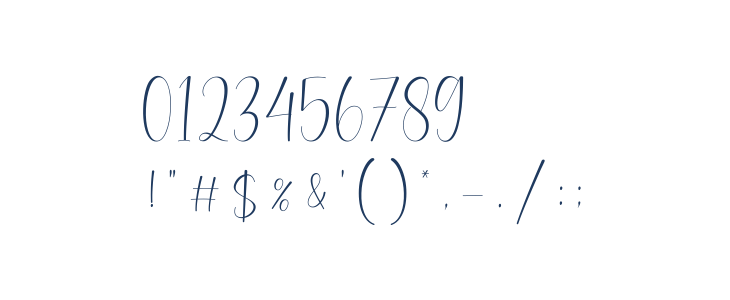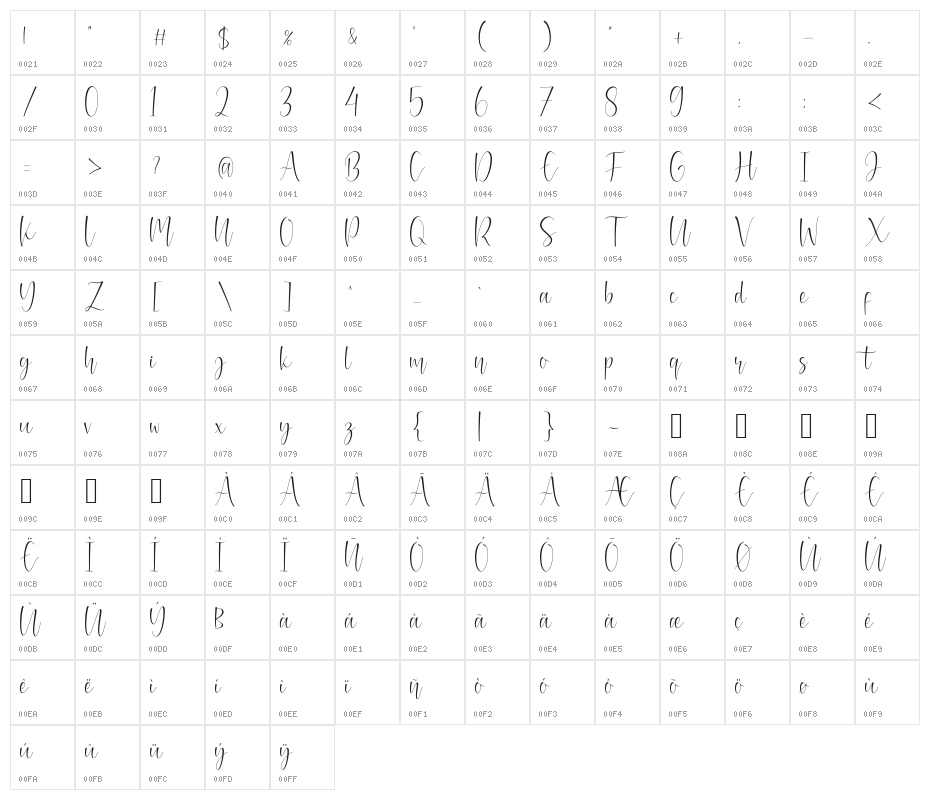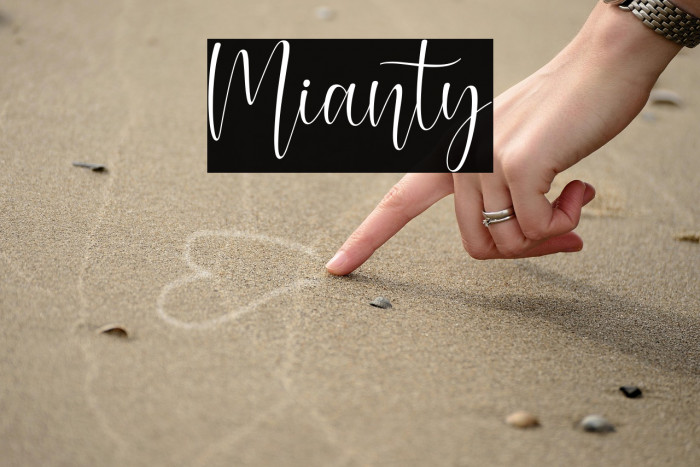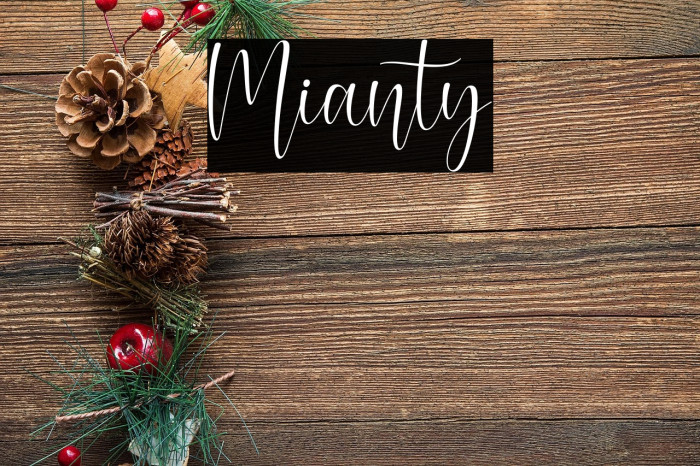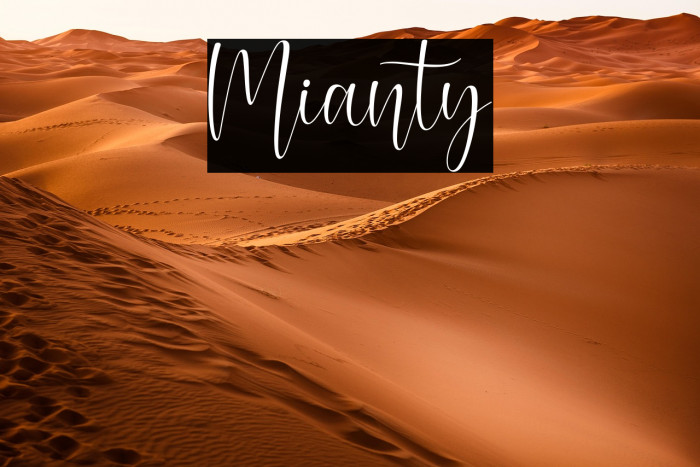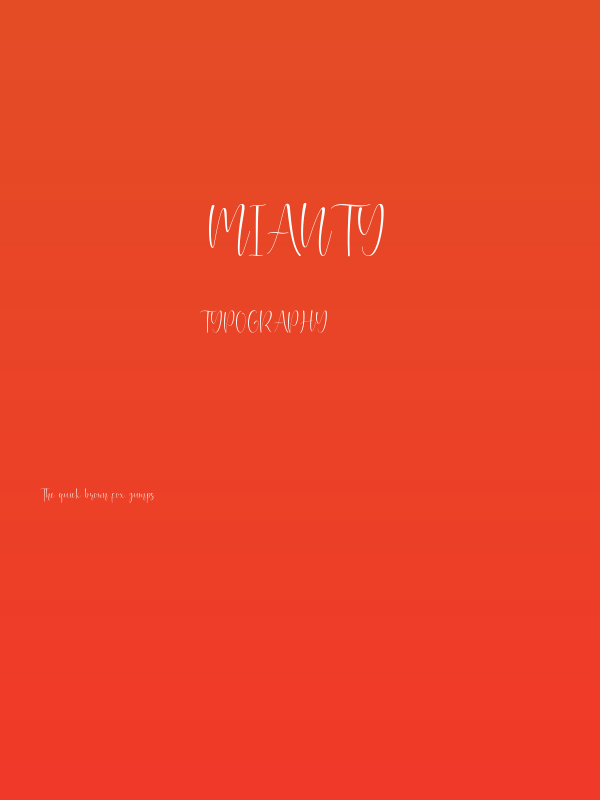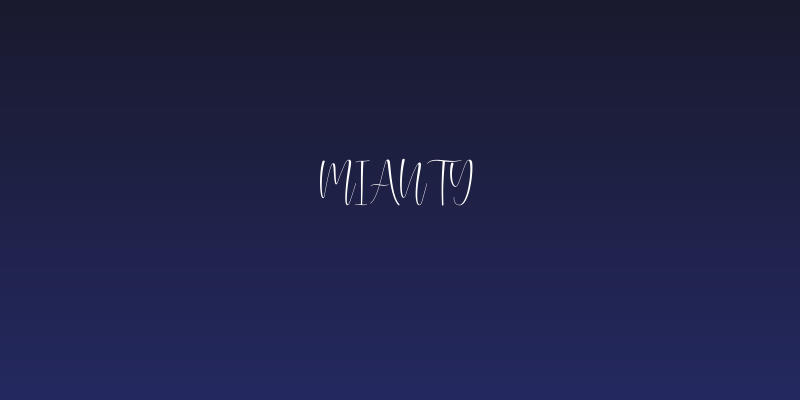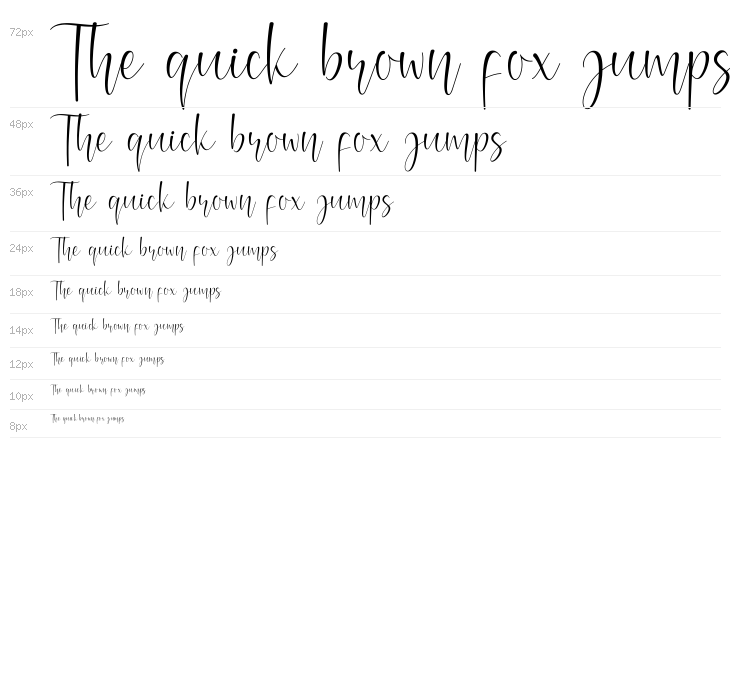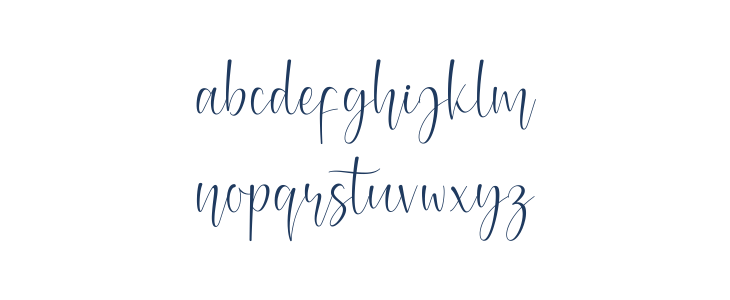
Mianty Font
Mianty Description
This elegant script font features a flowing, handwritten style with a modern twist. The characters are gracefully connected, creating a sense of fluidity and movement. The uppercase letters are tall and slender, while the lowercase letters are more compact, adding a playful contrast. The numbers and special characters maintain the same fluidity, ensuring consistency throughout. The font's delicate strokes and slight slant give it a sophisticated and stylish appearance, making it ideal for projects that require a personal touch. Its versatility allows it to be used in a variety of design contexts, from wedding invitations to branding materials.
| Use Case | Logos, Invitations, Headlines |
| Proposed Projects | Ideal for wedding invitations, greeting cards, branding, and social media graphics. |